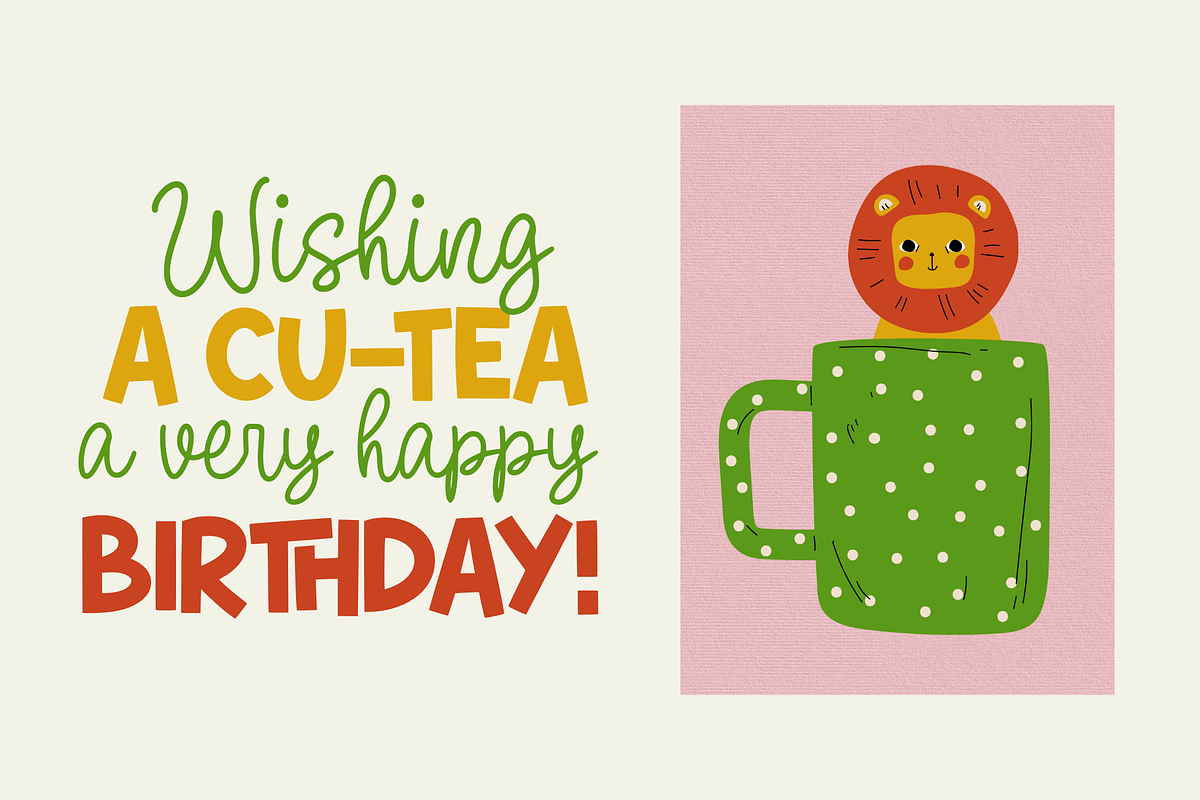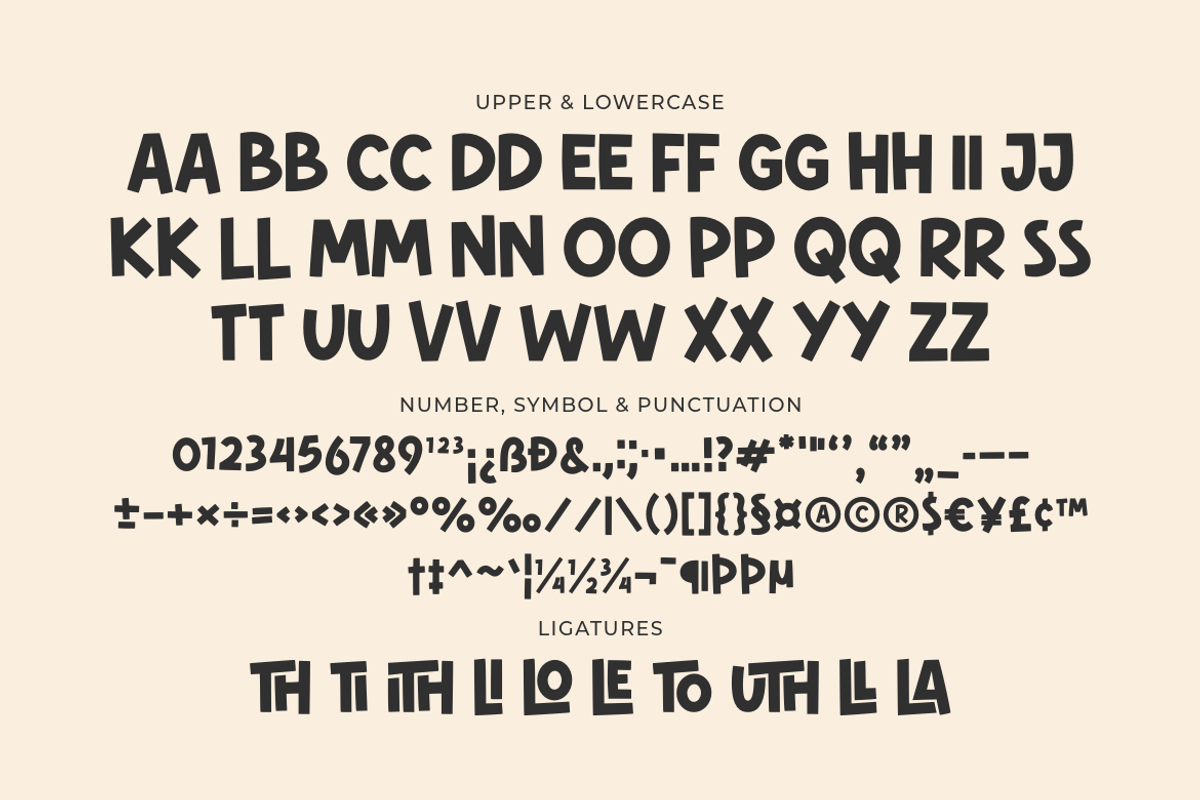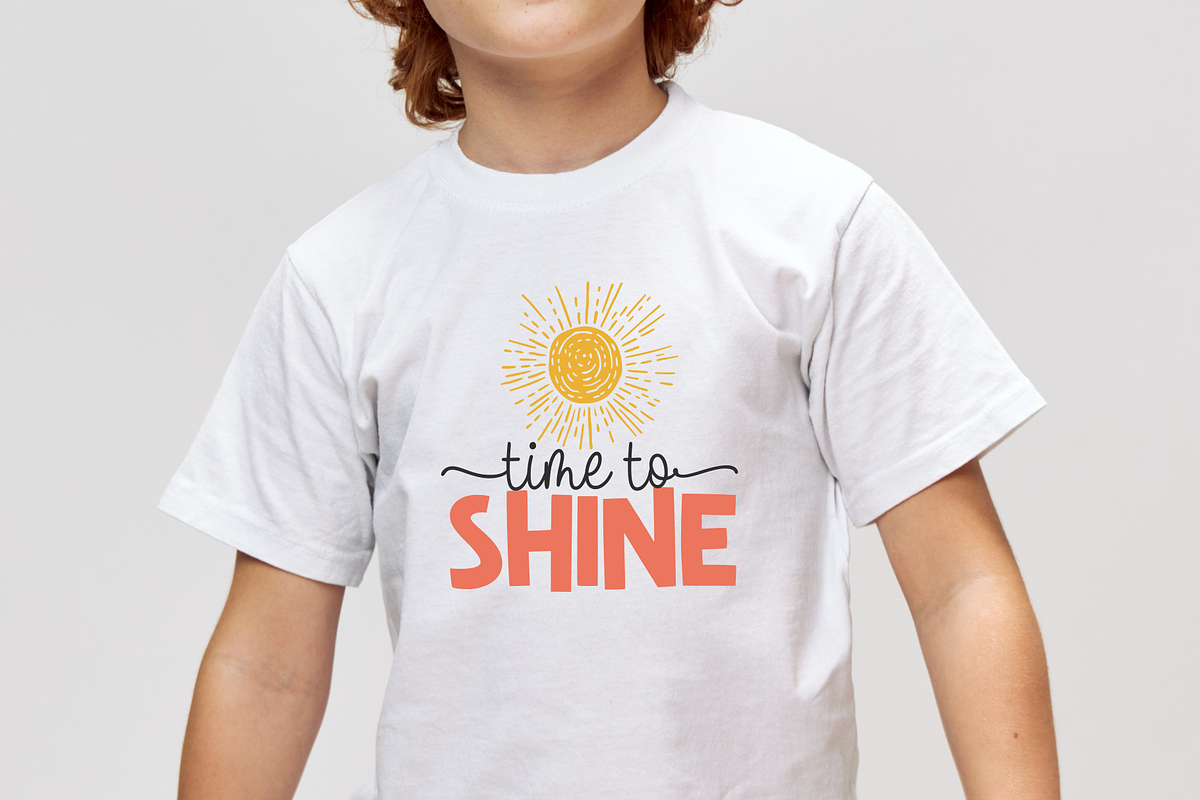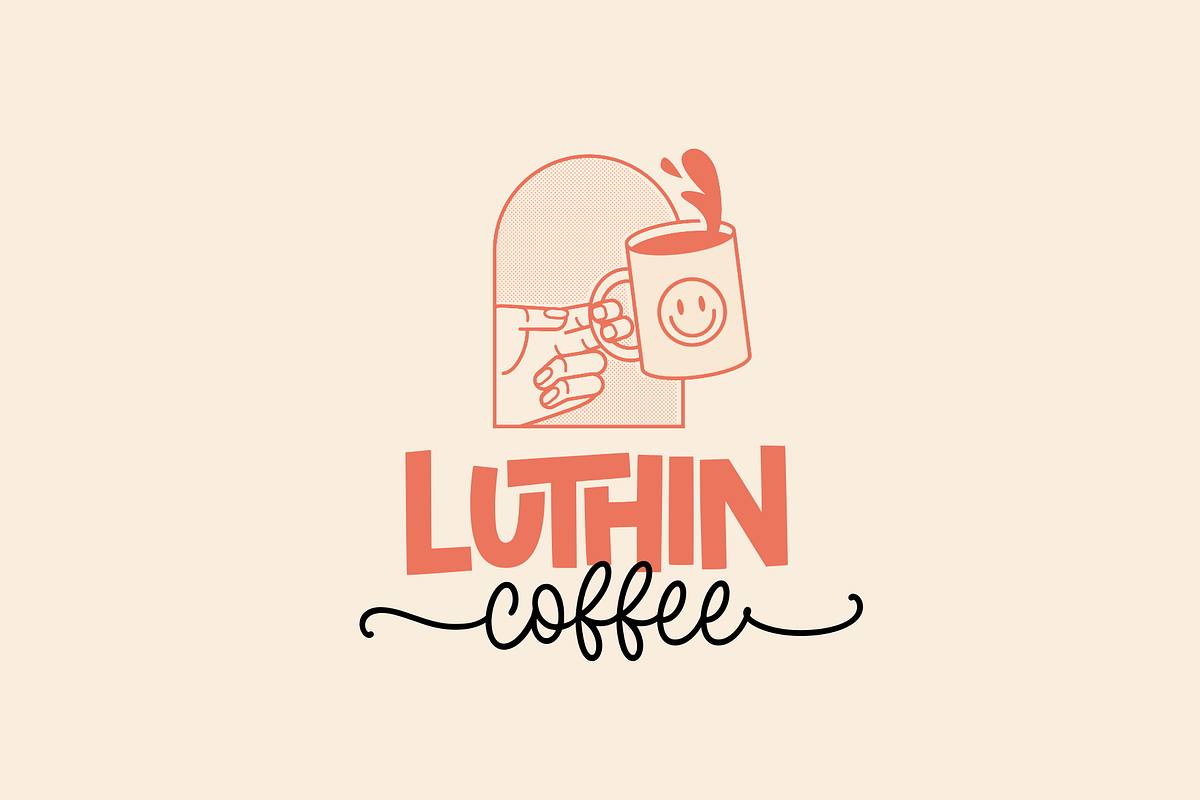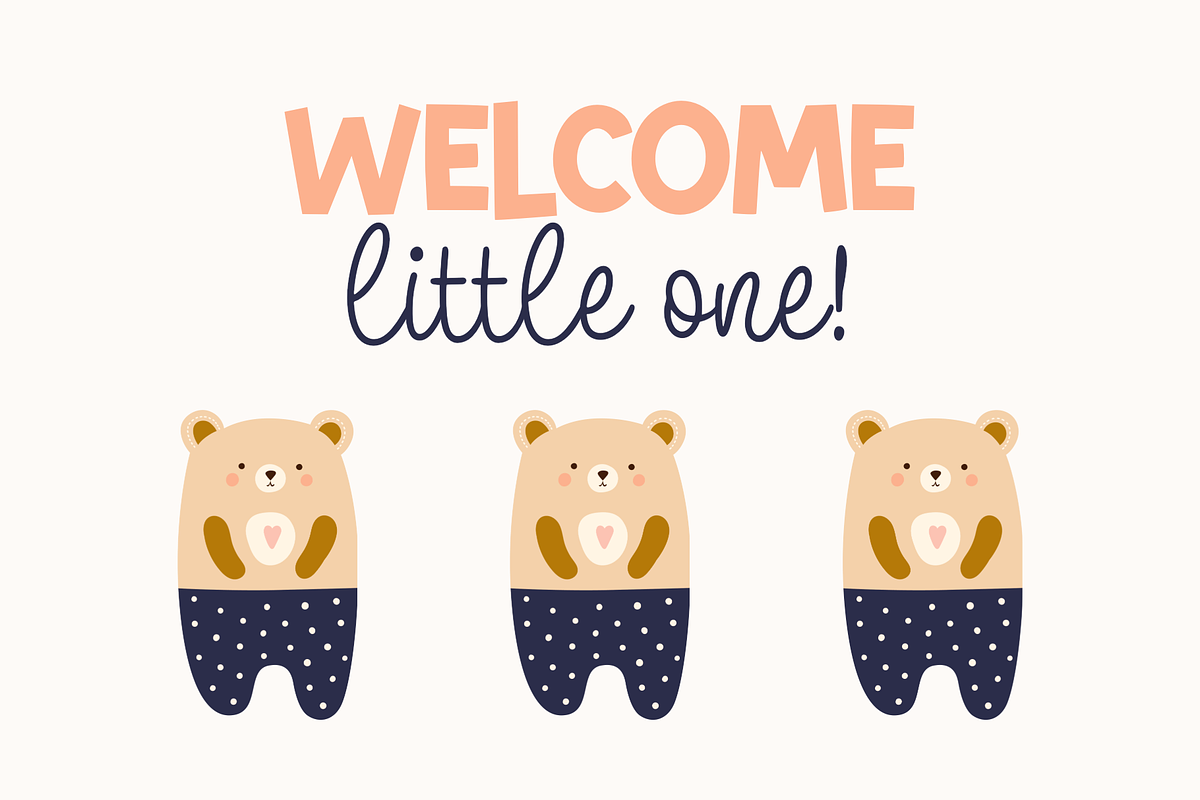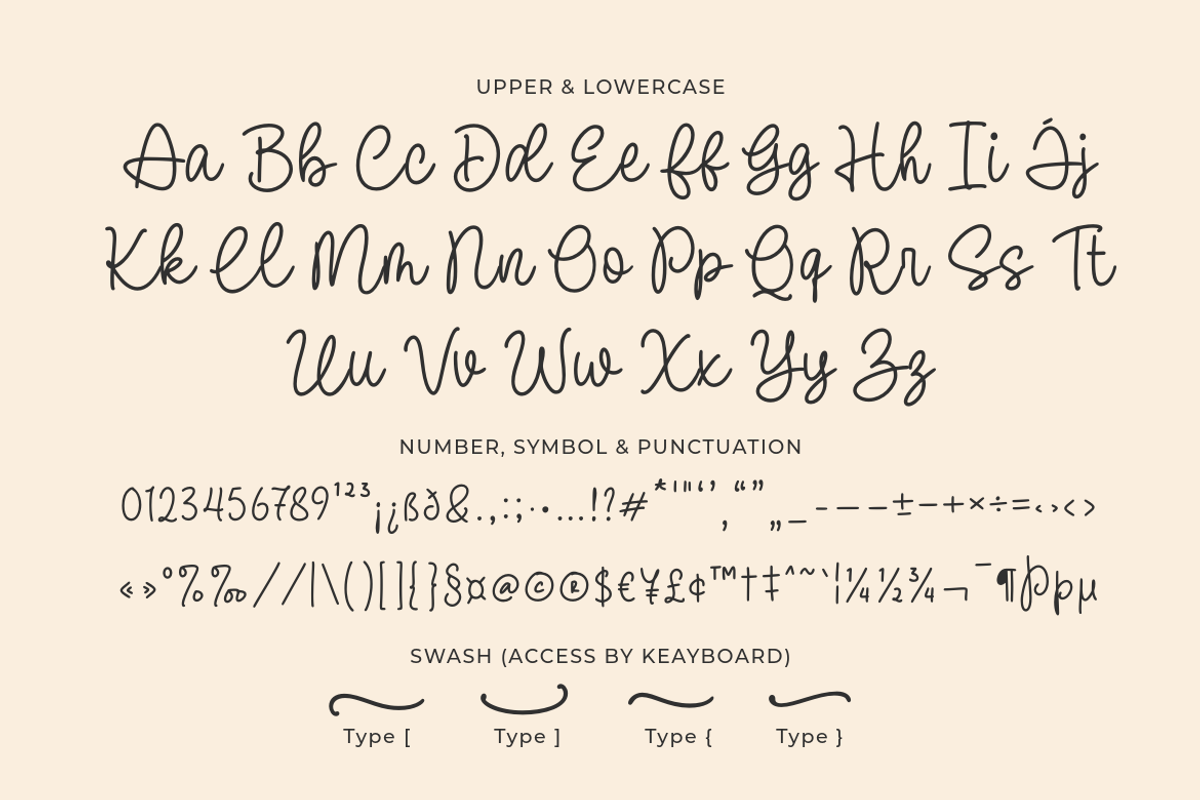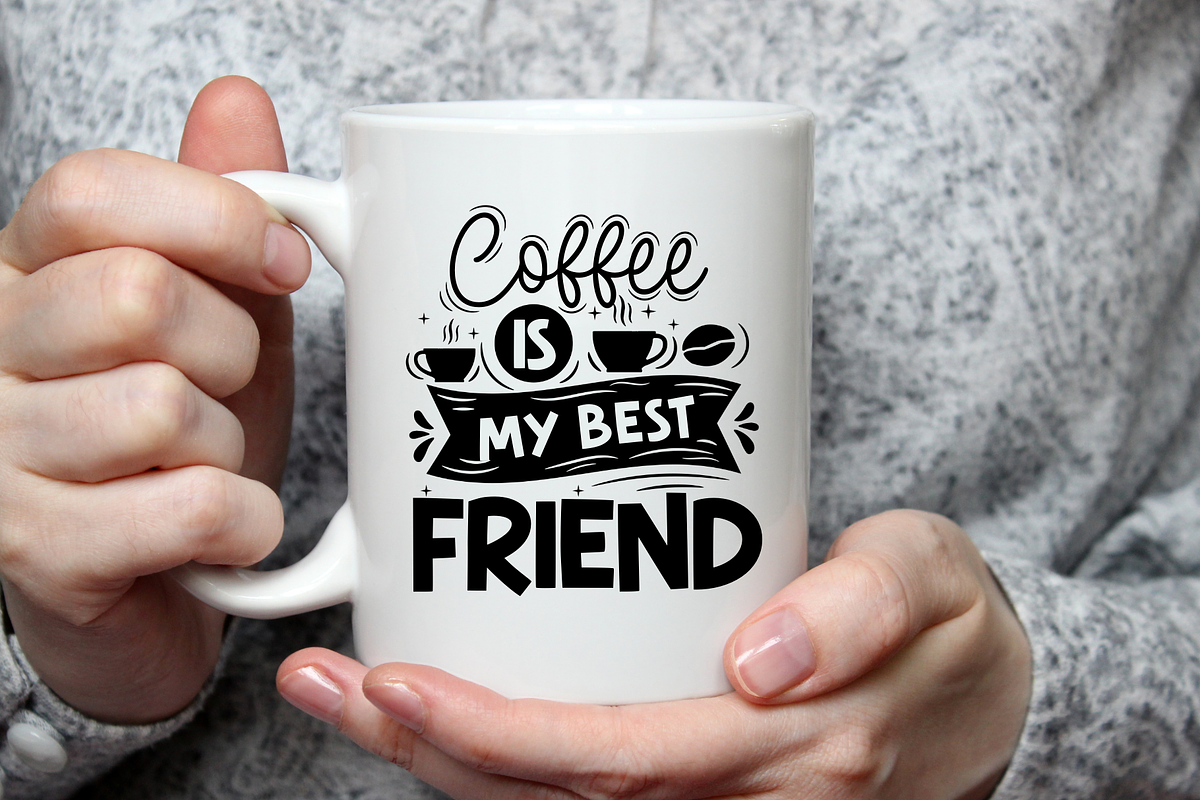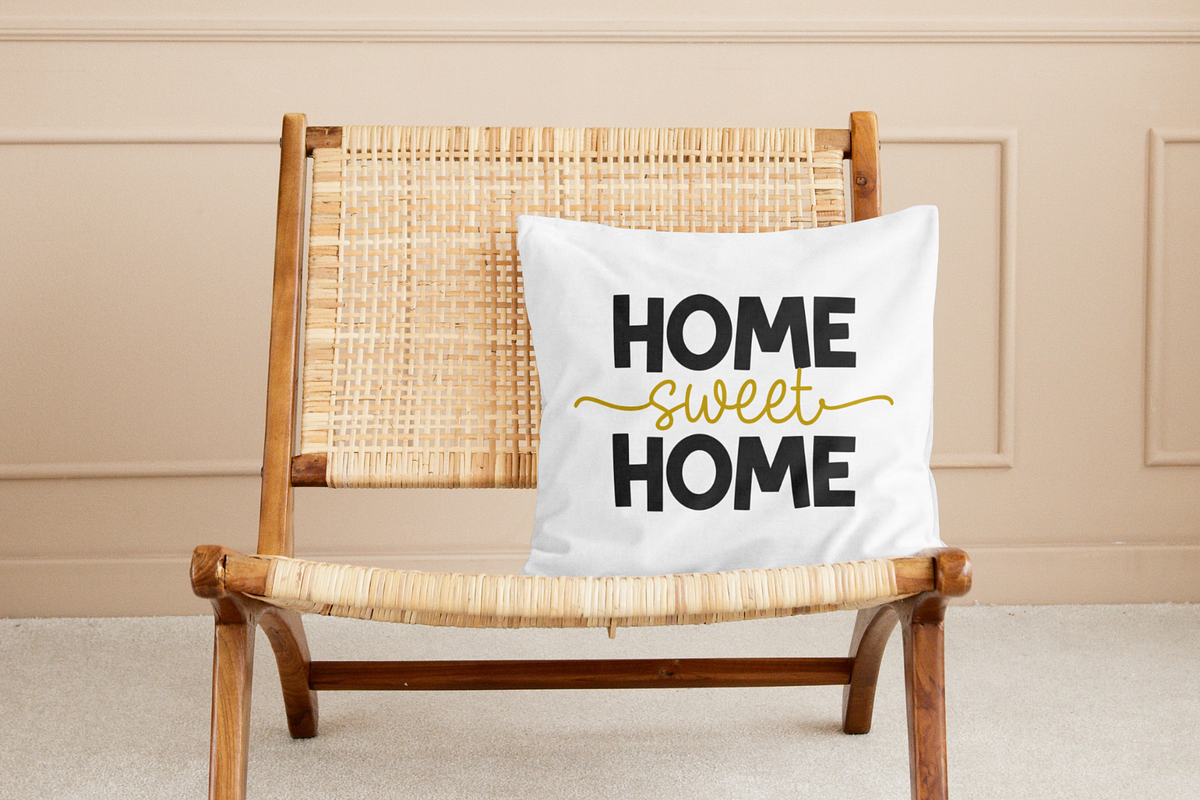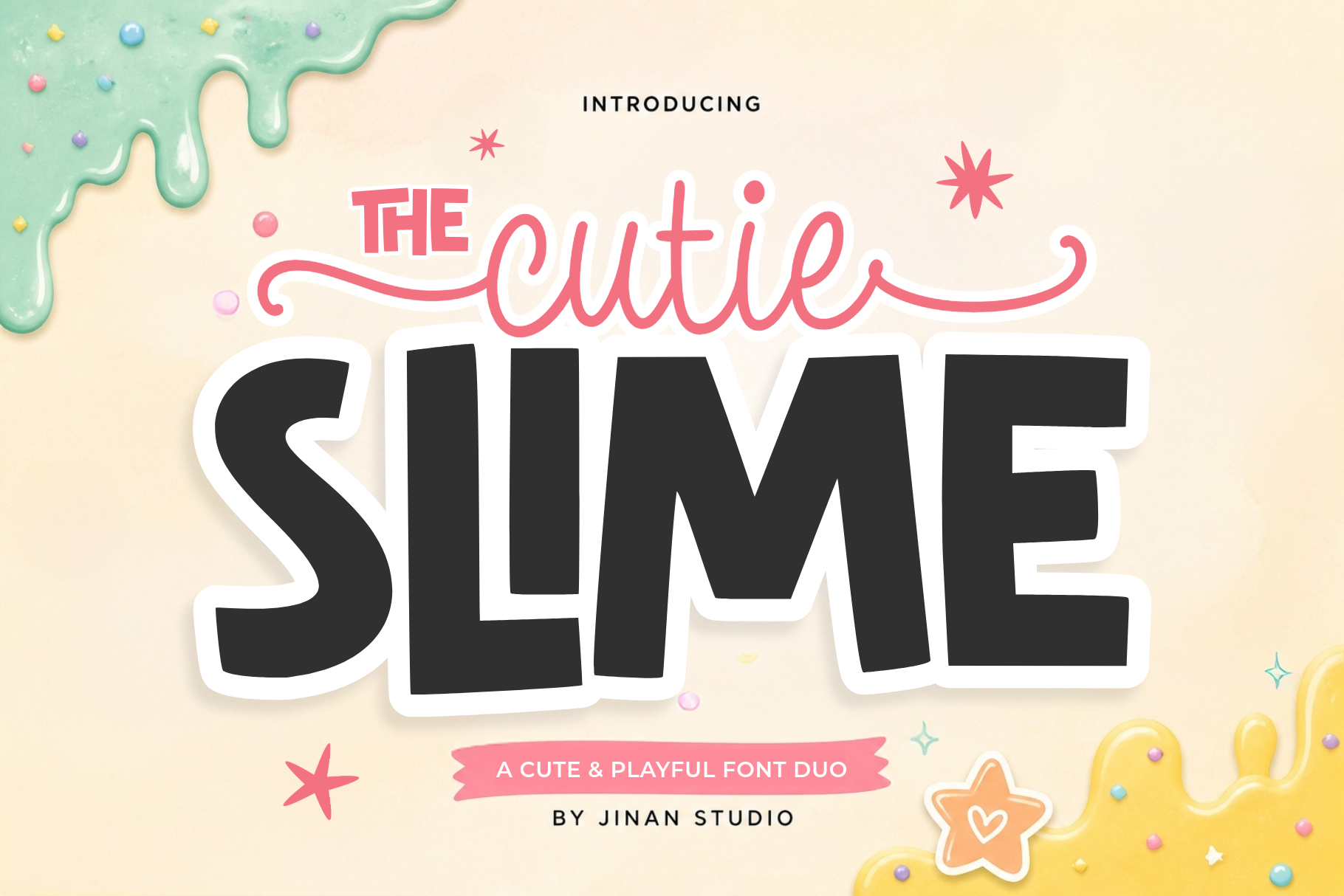
Cutie Slime - A Playful Font Duo
Cutie Slime is a cute and playful font duo designed to bring joy, color, and personality into your creative projects. This unique combination includes a bold display sans serif font paired with a smooth handwritten script, making it perfect for eye-catching and cheerful designs.
With its chunky, high-impact letterforms and sweet flowing script, The Cutie Slime creates the perfect balance between fun and readability. Inspired by slime textures, candy colors, and happy childhood vibes, this font duo is ideal for designers looking to create bright and engaging visuals.
A set of uppercase and lowercase glyphs (Allcaps Sans Version)
Number, symbol, and punctuation
Alternate and Ligature
Swash
Access Swashes by keyboard
key bracketleft *' [ '** to feature beginning swash 1
key braceleft *' { '** to feature beginning swash 2
key bracketright *' ] '** to feature ending swash 1
key braceright *' } '** to feature ending swash 2
For Example: type [happy]